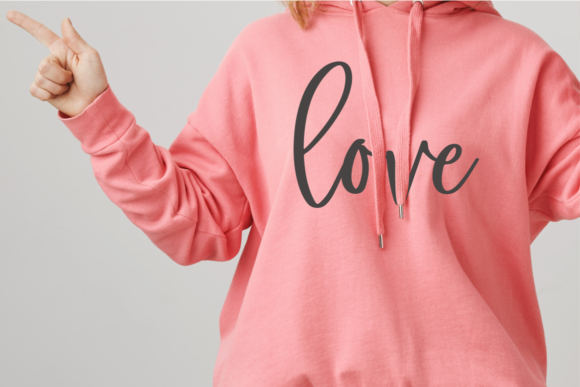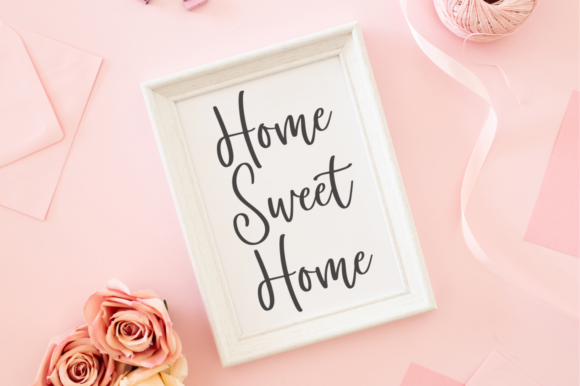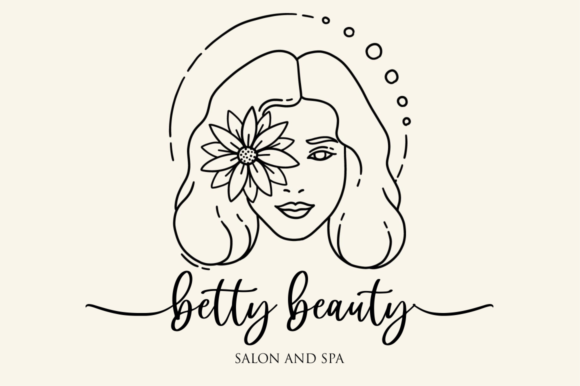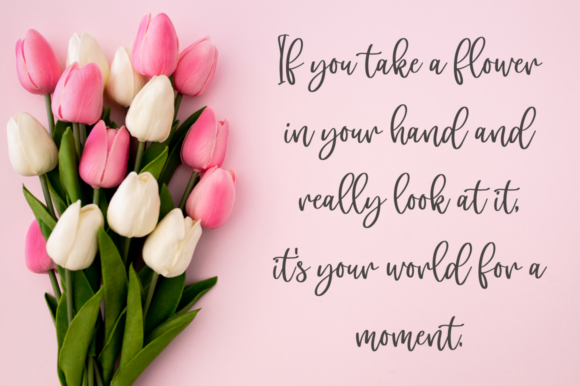
Pebby Font
About Pebby Font
Pebby is a cute handwritten font. Its sweet and full of life style makes this font a wonderful choice for brightening up your designs.